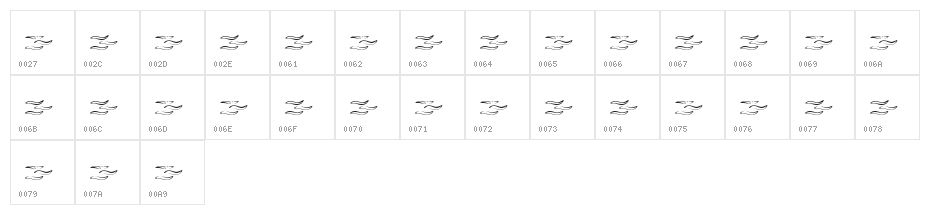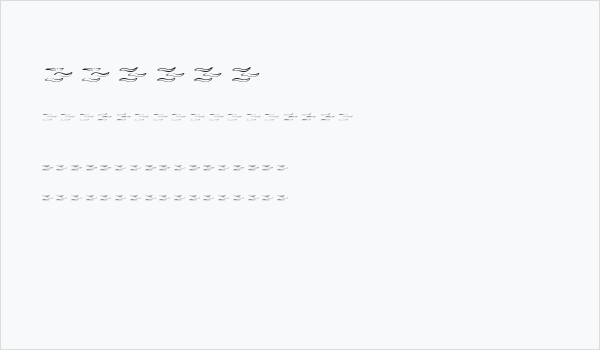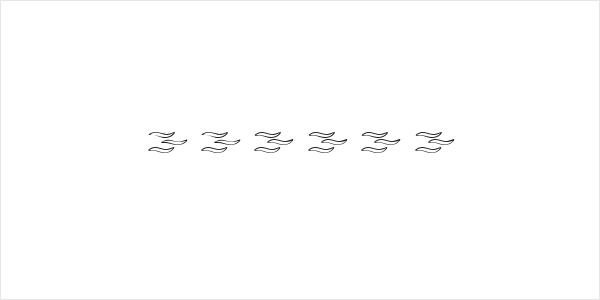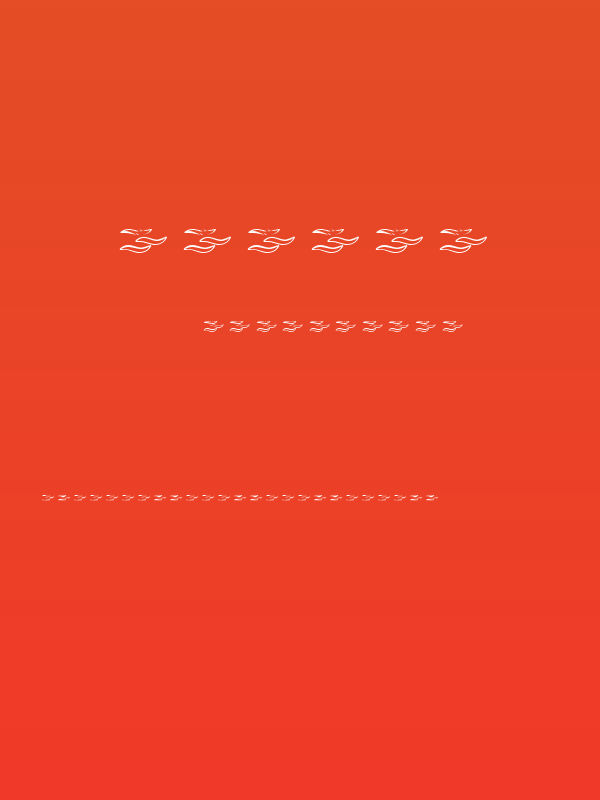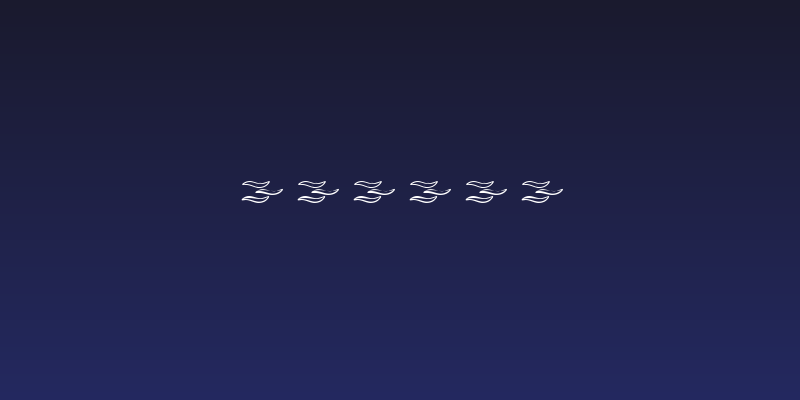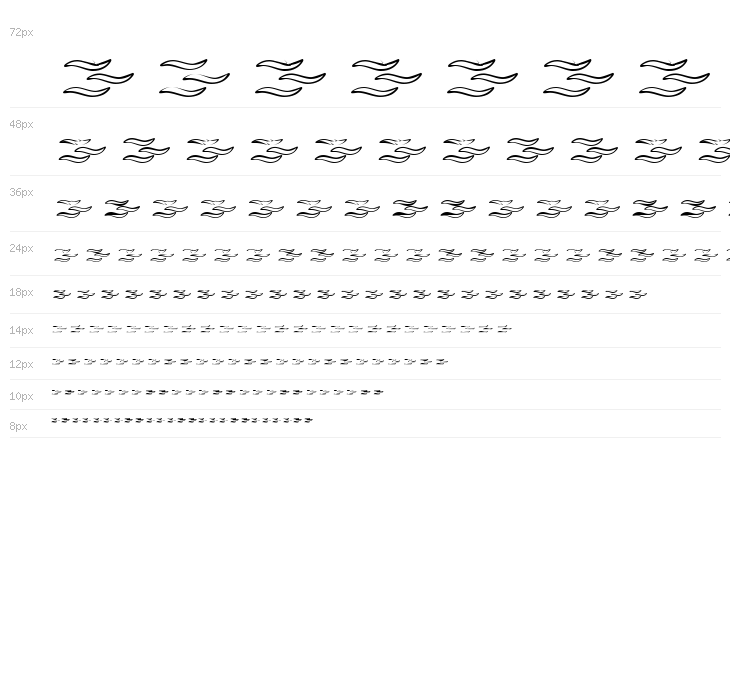
Sfockt Font
Sfockt Description
This design features a series of stylized, wavy lines that resemble a tilde or a decorative flourish. The lines are consistent in their curvature and spacing, creating a rhythmic pattern across the image. The design is simple yet elegant, with a modern aesthetic that could be used in various creative applications. The lines are bold and clear, making them suitable for high-visibility projects.
Proposed ProjectsThis design could be used for decorative borders, branding elements, or as a pattern in graphic design projects.